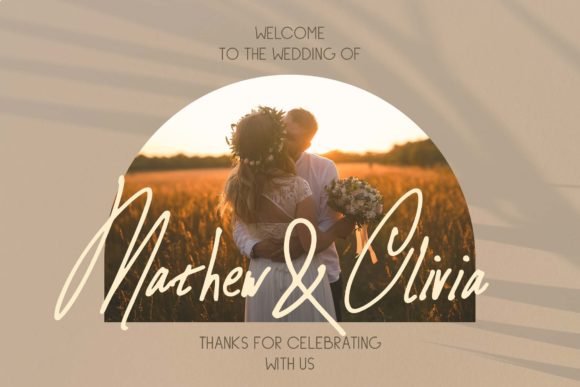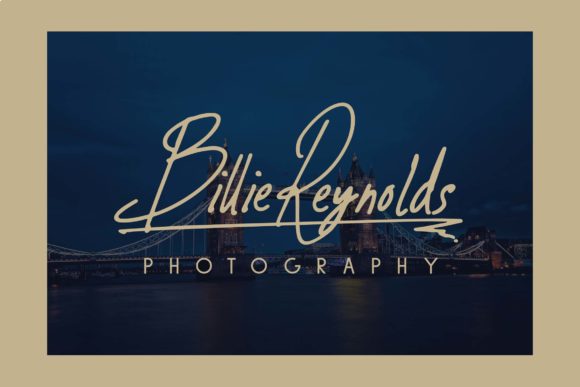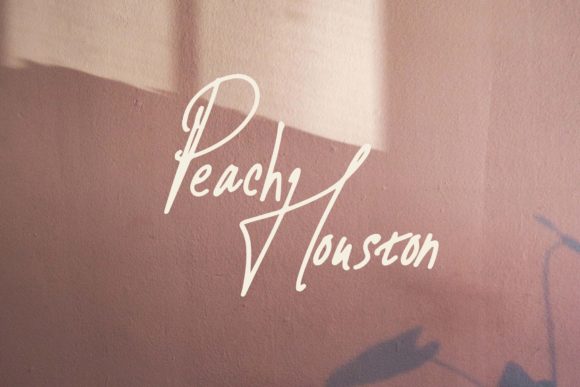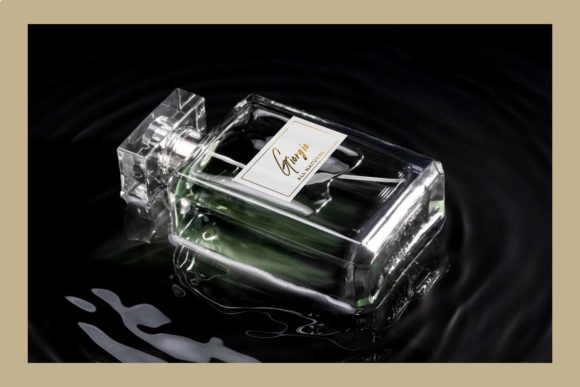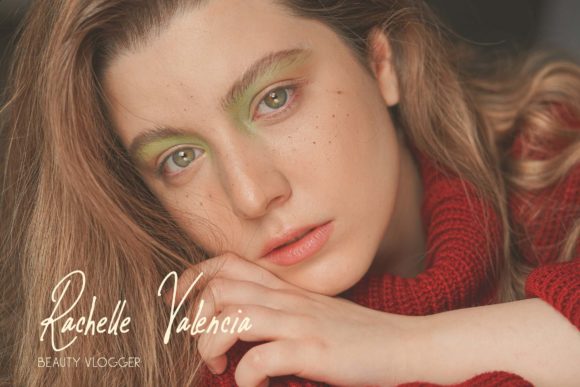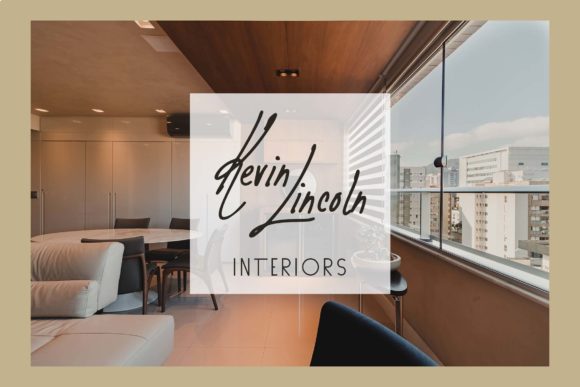
Catherine Font: Elevate Your Designs with Elegance and Sophistication
Are you a designer or crafter looking for a font that exudes luxury, sophistication, and style? Look no further than Catherine Font, a thin lettered and stylish script font that is perfect for a wide range of design projects. In this article, we’ll dive into the features and benefits of Catherine Font, and explore how it can elevate your designs to the next level.
What is Catherine Font?
Catherine Font is a beautiful script font characterized by its thin letters and stylish flair. Its elegant and refined design makes it perfect for projects that require a touch of sophistication and luxury. Whether you’re designing a logo, invitation, wedding event, or advertisement, Catherine Font is a versatile choice that can add a level of class and refinement to your work.
Key Features of Catherine Font
- Thin lettered and stylish script font: Catherine Font features delicate and refined letters that are perfect for creating elegant and sophisticated designs.
- Multi-purpose: This font is suitable for a wide range of design projects, including signatures, fashion, luxury, invitations, wedding events, modern and classic modern designs, logotypes, advertising, and more.
- Easy to read and versatile: Catherine Font is designed to be easy to read, making it perfect for body text and headlines. Its versatility also makes it suitable for use in various design contexts.
Use Cases for Catherine Font
Catherine Font is an incredibly versatile font that can be used in a variety of design projects. Here are some examples of how you can use Catherine Font to elevate your designs:
- Signatures: Add a touch of elegance and sophistication to your signatures with Catherine Font.
- Fashion and luxury designs: Catherine Font is perfect for fashion and luxury brands that want to convey a sense of high-end quality and sophistication.
- Invitations and wedding events: Make your invitations and wedding event designs stand out with the elegant and refined design of Catherine Font.
- Logotypes and branding: Use Catherine Font to create a unique and memorable logotype that reflects your brand’s values and personality.
- Advertising and marketing: Catherine Font is perfect for creating eye-catching and effective advertisements that grab the attention of your target audience.
Benefits of Using Catherine Font
So why choose Catherine Font for your design projects? Here are some benefits of using this beautiful script font:
- Elegance and sophistication: Catherine Font adds a level of elegance and sophistication to your designs, making them perfect for high-end brands and luxury products.
- Versatility: This font is incredibly versatile and can be used in a wide range of design contexts, from fashion and luxury to invitations and advertising.
- Easy to read: Catherine Font is designed to be easy to read, making it perfect for body text and headlines.
- Unique and memorable: Catherine Font is a unique and memorable font that can help your designs stand out from the crowd.
Tips for Using Catherine Font
Here are some tips for getting the most out of Catherine Font:
- Use it sparingly: Catherine Font is a elegant and sophisticated font, so use it sparingly to avoid overwhelming your designs.
- Pair it with other fonts: Experiment with pairing Catherine Font with other fonts to create a unique and visually appealing design.
- Adjust the font size and style: Adjust the font size and style to suit your design needs and create a balanced look.
| Author | graphiqa |
Catherine Font is a beautiful and versatile script font that is perfect for designers and crafters looking to add a touch of elegance and sophistication to their designs. With its thin letters and stylish flair, Catherine Font is suitable for a wide range of design projects, from fashion and luxury to invitations and advertising. By following the tips outlined in this article, you can get the most out of Catherine Font and create stunning designs that elevate your brand and message.